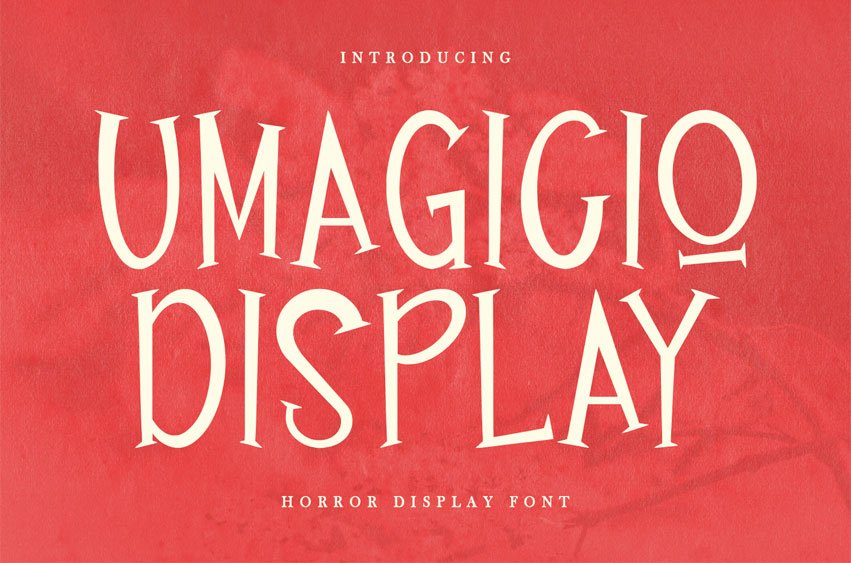
Umagicio Font is a spooky and bold serif font with sharp edges, perfect for horror themes.
Its unique style gives a creepy and mysterious feel, making it great for scary titles or Halloween designs!